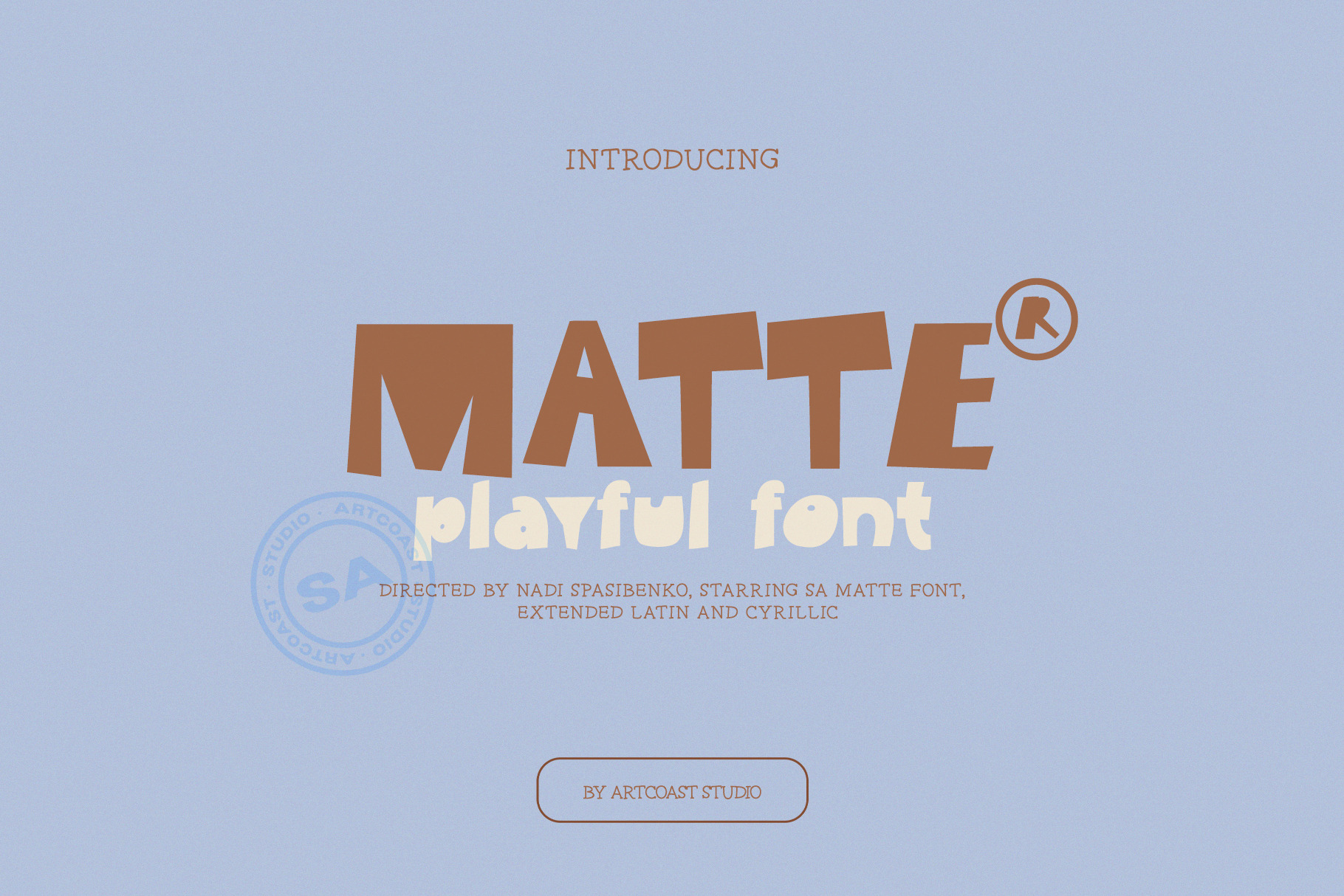
SA Matte Playful Font
Matte Playful Font is a bold and quirky typeface inspired by cut-out paper collages. Its playful shapes, soft imperfections, and retro vibe make it perfect for packaging, branding, posters, social media, and DIY projects.
The font includes Extended Latin and Cyrillic support, giving you a wide range of multilingual possibilities. With its chunky, hand-cut style, Matte turns words into graphic elements and adds personality to any design.
📌 Features
Supports Extended Latin and Cyrillic alphabets
Complete uppercase & lowercase letters
Numbers, punctuation & symbols
Unique hand-cut paper look